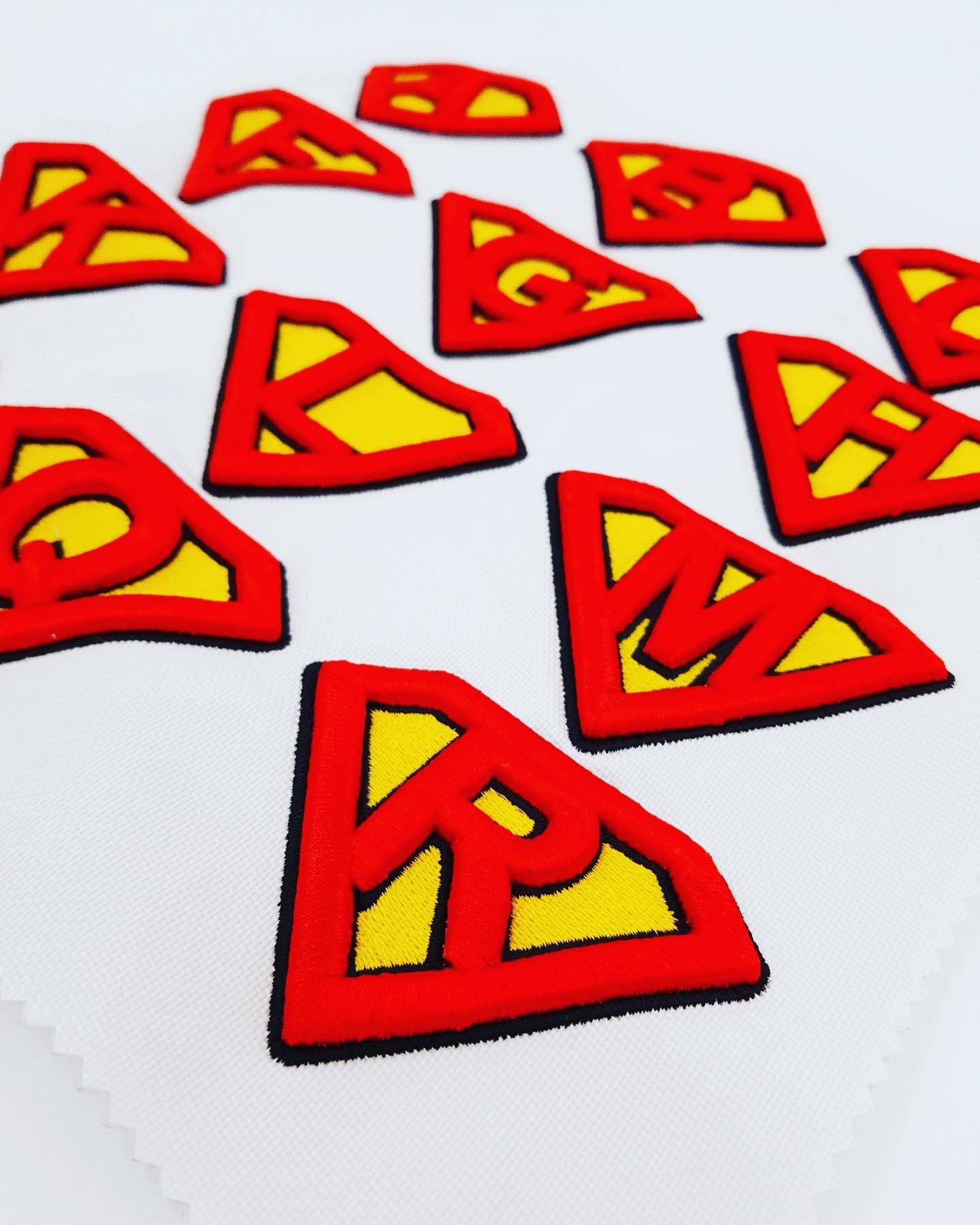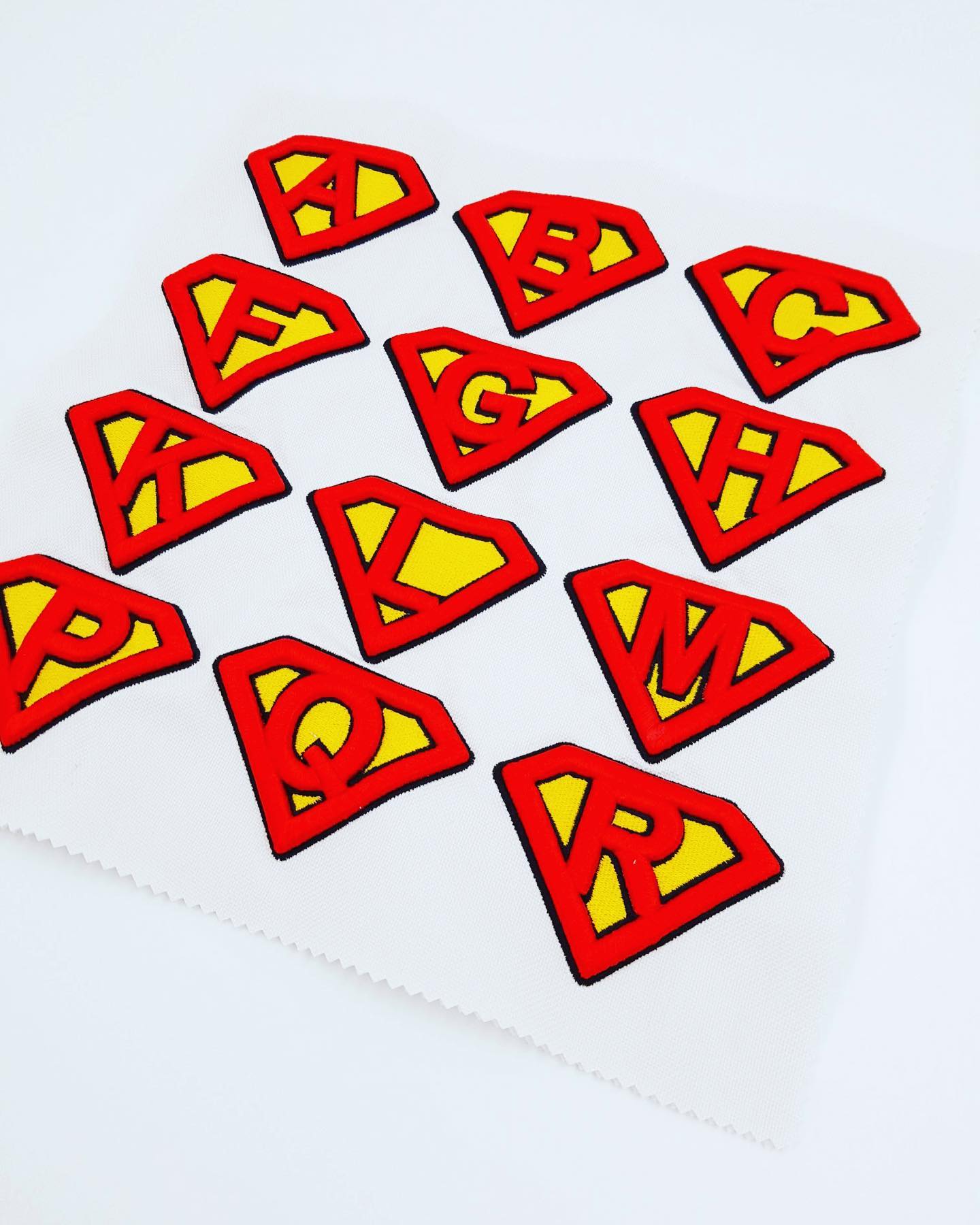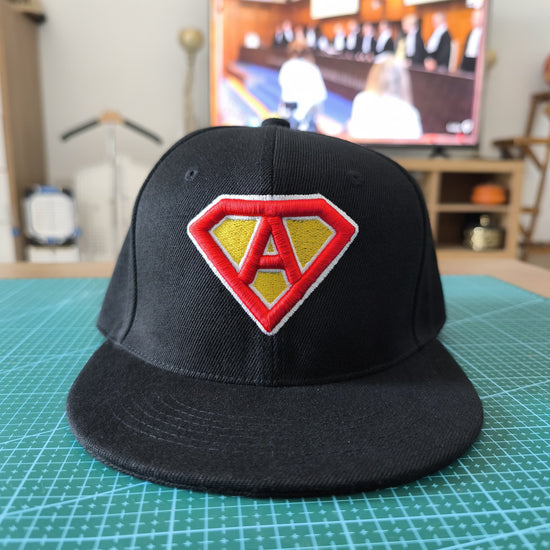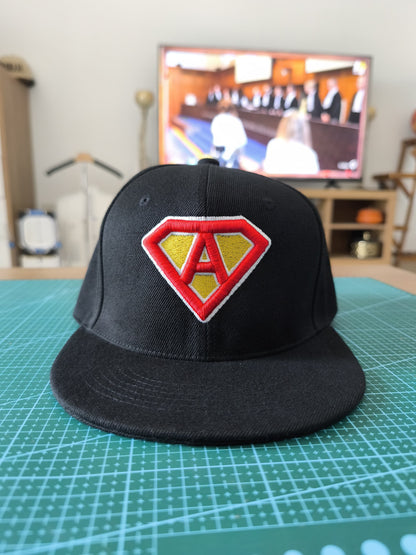
ShieldCraft Heroes: Superhero Shield Embroidery 3D Puff Font & Number Collection
Unleash your inner hero with ShieldCraft Heroes—a bold embroidery font collection inspired by the iconic shields and emblems of legendary superheroes.
Each letter and number features angular, geometric designs reminiscent of armored plating, crests, and invincible badges, crafted to evoke strength, protection, and unyielding courage.
Perfect for custom gear, team jerseys, or heroic personal branding, this font set combines sharp lines, metallic thread accents, and tactical depth for embroidery that commands attention.
Armor-Inspired Aesthetics: Shield-like letters with chiseled edges and 3D stitching mimic the texture of battle-ready armor.
Versatile Heroism: Ideal for sports teams, cosplay costumes, gym apparel, or empowering slogans—stitch names, mottos, or jersey numbers with fearless flair.
Durability Fit for Legends: Reinforced stitching ensures designs withstand wear, washes, and whatever challenges come your way.
Metallic & Neon Thrills: Opt for shimmering silver/gold threads or vibrant hero-color palettes to customize your emblem.
From capes to caps, ShieldCraft Heroes turns everyday text into symbols of power. Because every hero deserves a legacy stitched in steel.